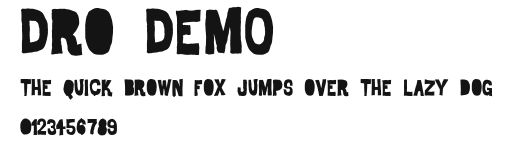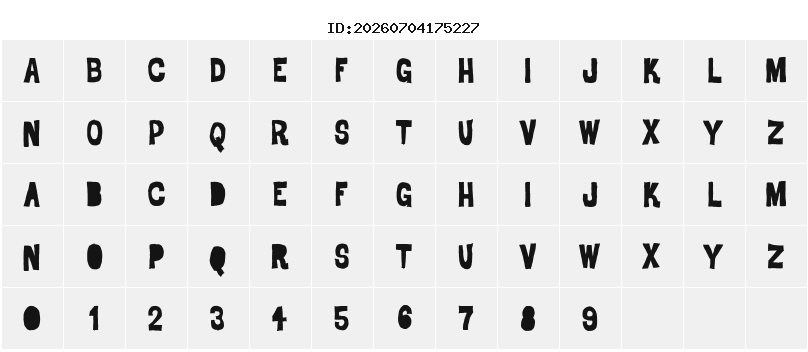
Dro DEMO Preview
• Font Name: Dro DEMO
• Full Font Name: Dro DEMO
• Designer: Kevin Christopher
About Dro DEMO.ttf
Dro DEMO.ttf is a modern, elegant sans-serif font designed for ultimate readability and visual harmony. Perfect for branding, headlines, web design, and print materials.